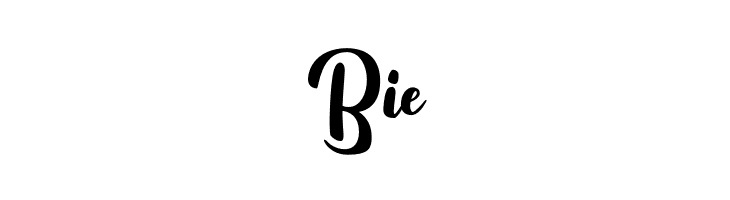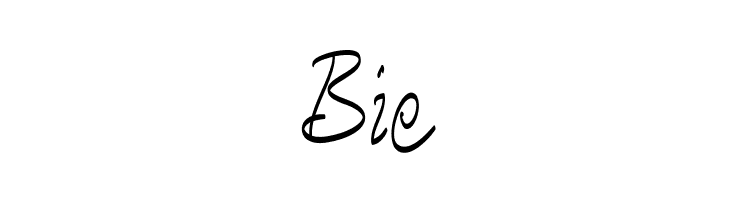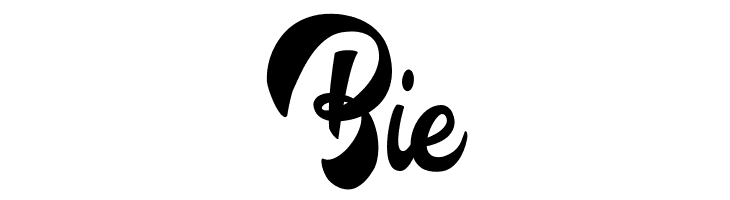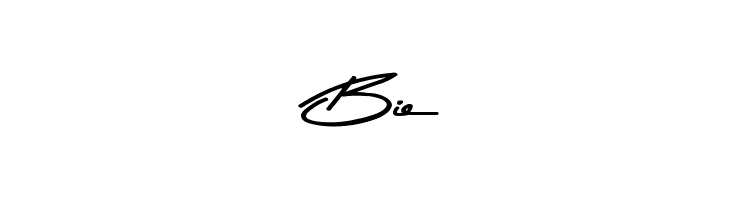
A playful, cursive script font with interconnected characters and elegant loops.
A lively, expressive handwritten font with fluid, interconnected strokes.
A bold, dynamic script font with interconnected, flowing letters and a modern, playful style.
A whimsical, handwritten script font with flowing, interconnected strokes.
A bold, expressive script font with fluid, interconnected strokes.